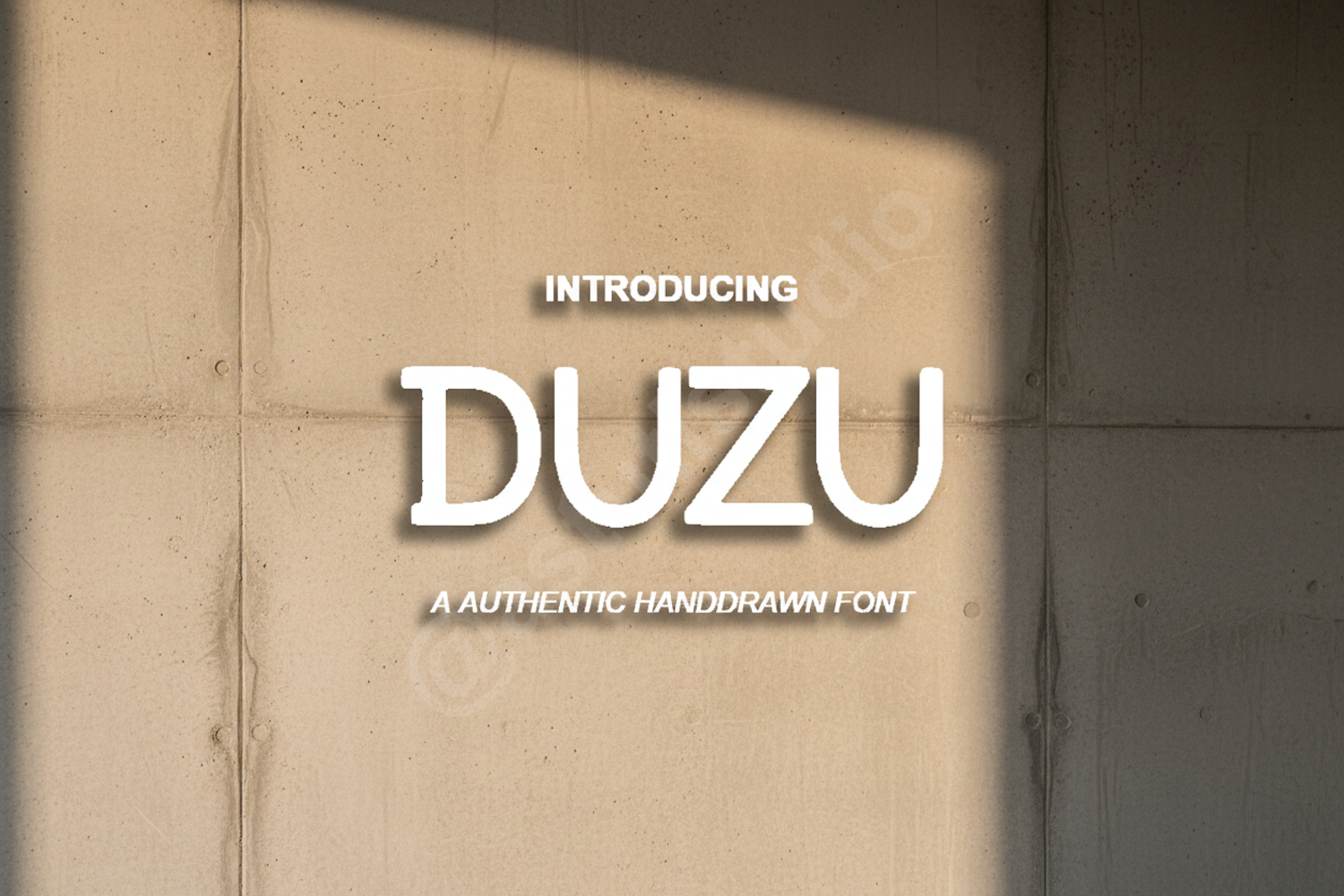
Duzu - Modern Geometric Sans Serif Typeface
Duzu
Duzu is a premium geometric sans serif font crafted for designers who value clean lines and modern sophistication. This versatile typeface strikes the perfect balance between technical precision and creative flair, making it an essential addition to any professional design toolkit.
- Branding and Identity: Create memorable logos and high-end corporate stationery.
- Editorial Design: Perfect for clean magazine layouts and minimalist book covers.
- Digital Media: Highly legible for website headers, landing pages, and mobile applications.
- Marketing Material: Ideal for promotional posters and social media graphics.
- Product Packaging: Adds a touch of contemporary luxury to labels and boxes.